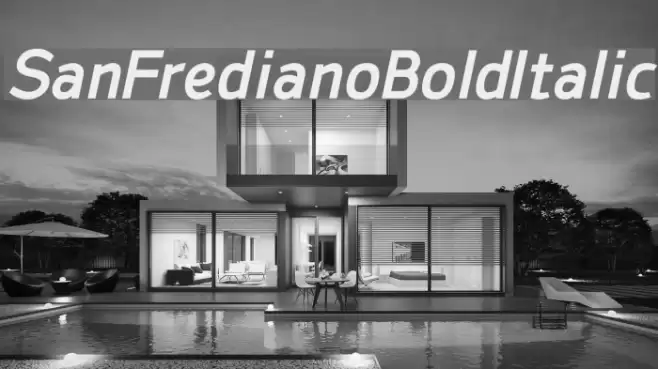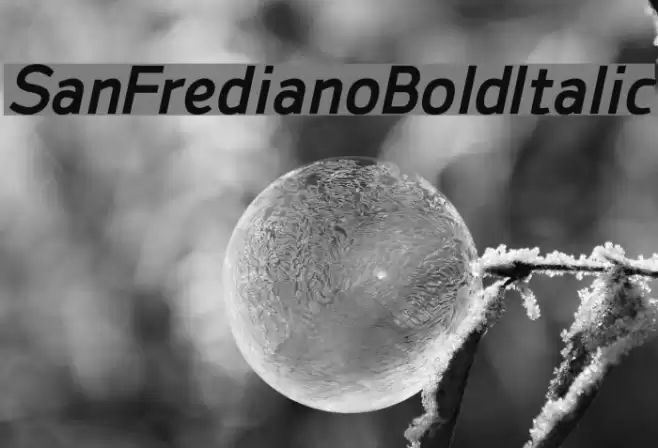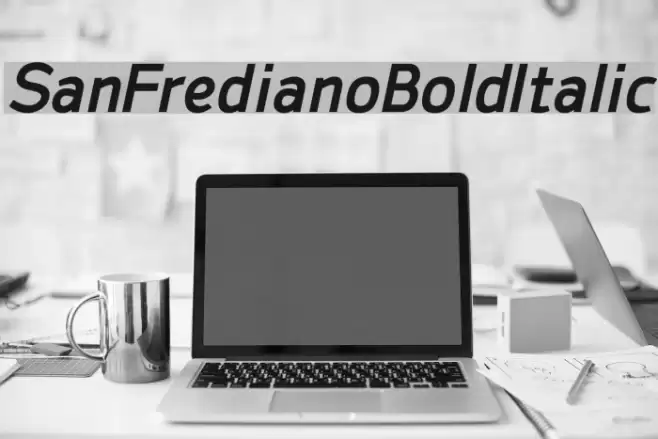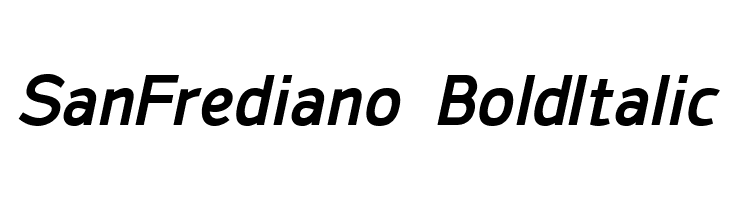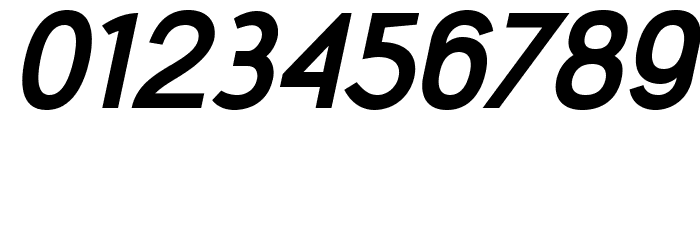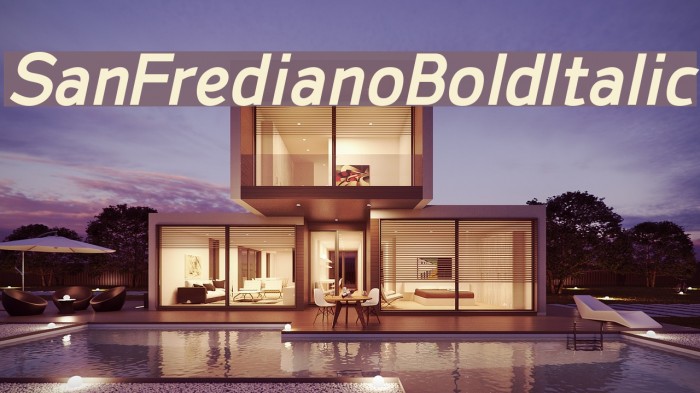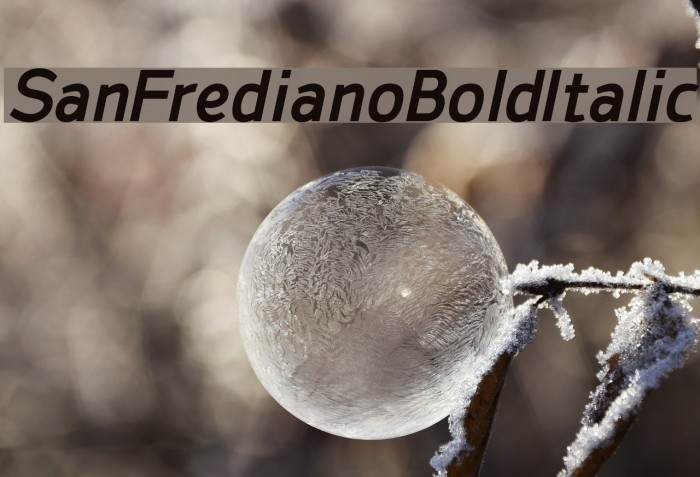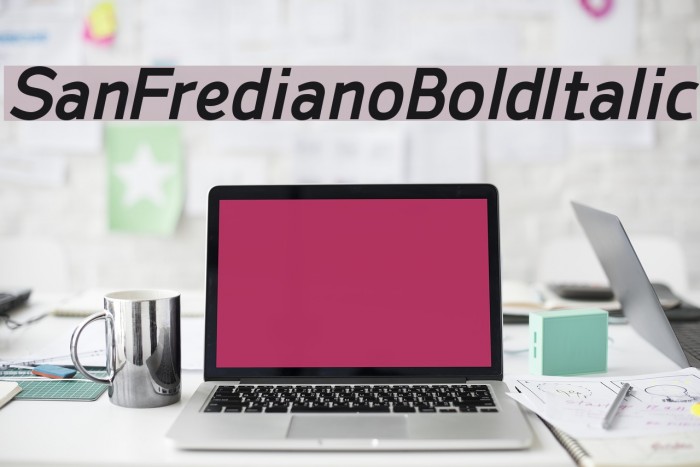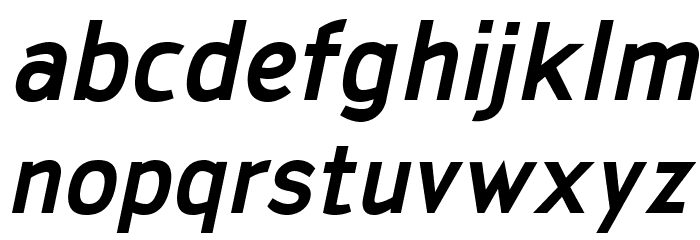
SanFrediano-BoldItalic Font
SanFrediano-BoldItalic Description
This font features a bold and italicized style, combining strength with a dynamic slant. The characters are well-defined with a modern sans-serif appearance, offering a clean and professional look. The uppercase letters are slightly taller than the lowercase, maintaining a consistent width that ensures readability. The numerals are clear and distinct, matching the overall boldness of the font. Its italic nature adds a sense of motion and elegance, making it suitable for various design needs. The font's structure is straightforward yet impactful, ideal for making statements in both digital and print media.
A bold, italicized sans-serif font with a modern and dynamic style from Uncategorized fonts.
- Proposed Projects: Ideal for branding, advertising, headlines, and digital content where a strong, modern presence is desired.
- Use Case: Headlines, Logos, Branding